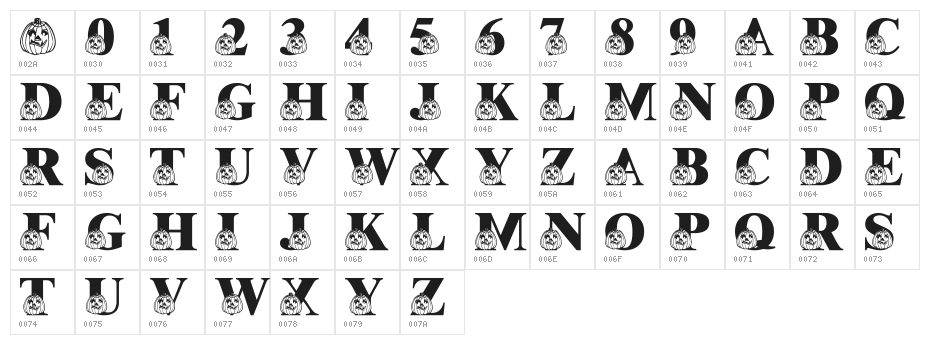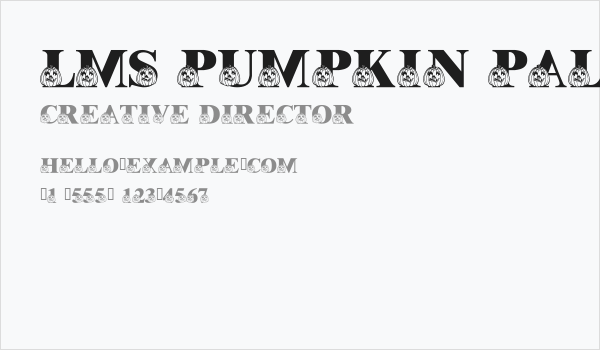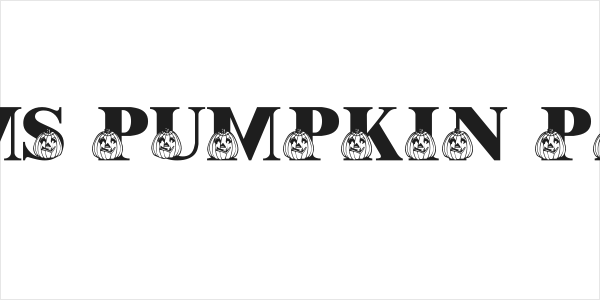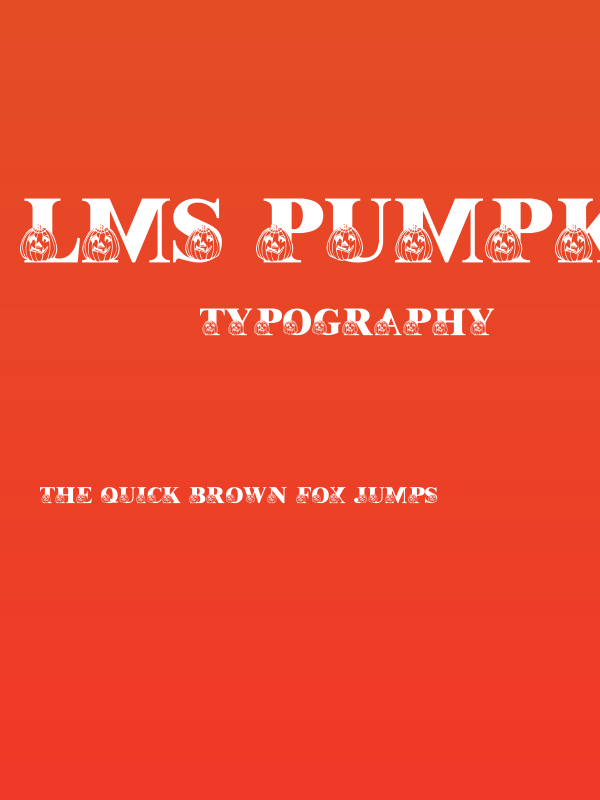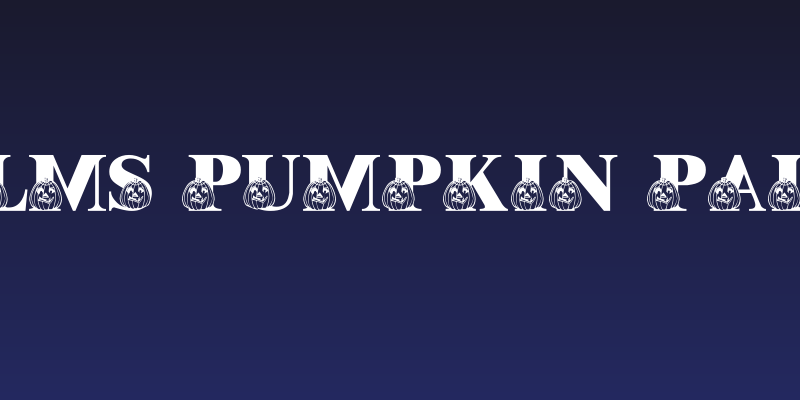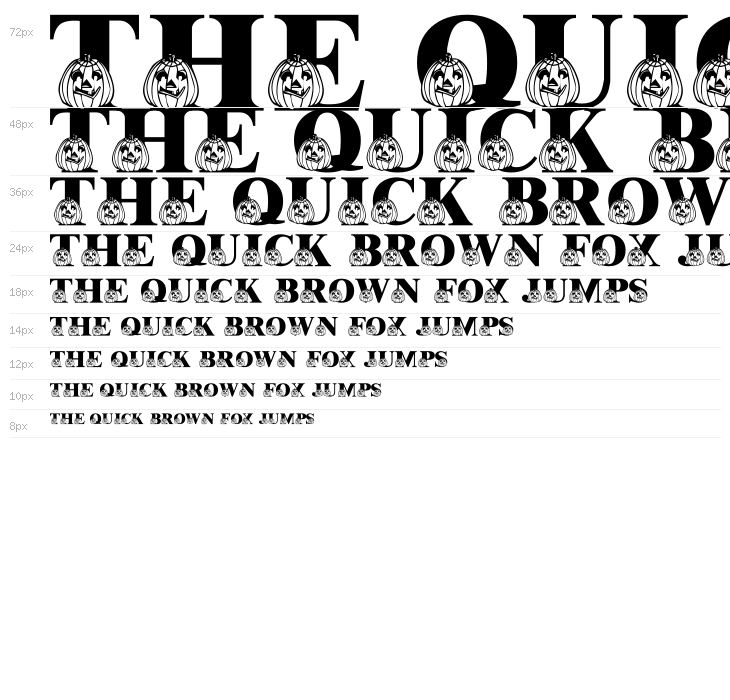
LMS Pumpkin Pal Font
LMS Pumpkin Pal Description
This decorative font features bold, uppercase letters with a playful Halloween theme. Each character is adorned with a stylized pumpkin graphic, adding a festive and whimsical touch. The font is designed to capture attention with its unique blend of traditional letterforms and thematic embellishments. The bold strokes and high contrast between the thick and thin lines give it a striking appearance, making it ideal for seasonal projects. The spacing between characters is normal, ensuring readability while maintaining its decorative appeal.
| Proposed Projects | Ideal for Halloween-themed invitations, posters, party decorations, and seasonal branding. |